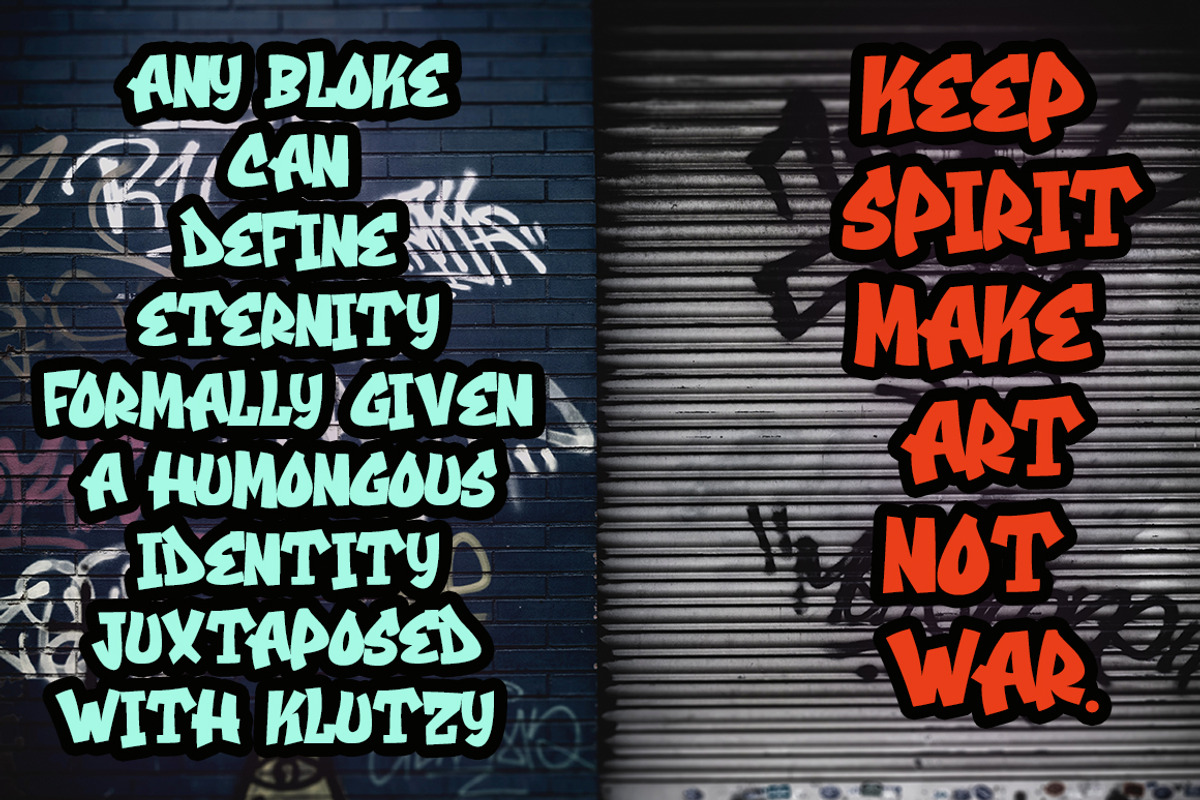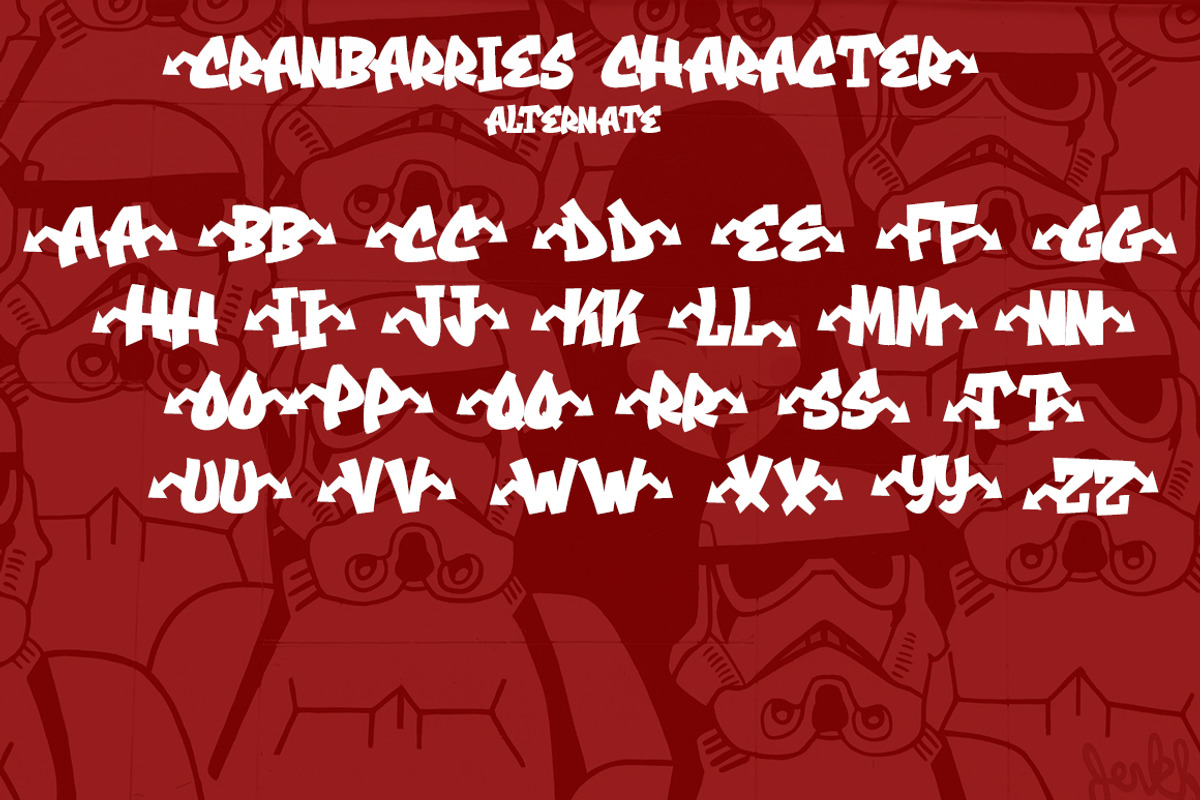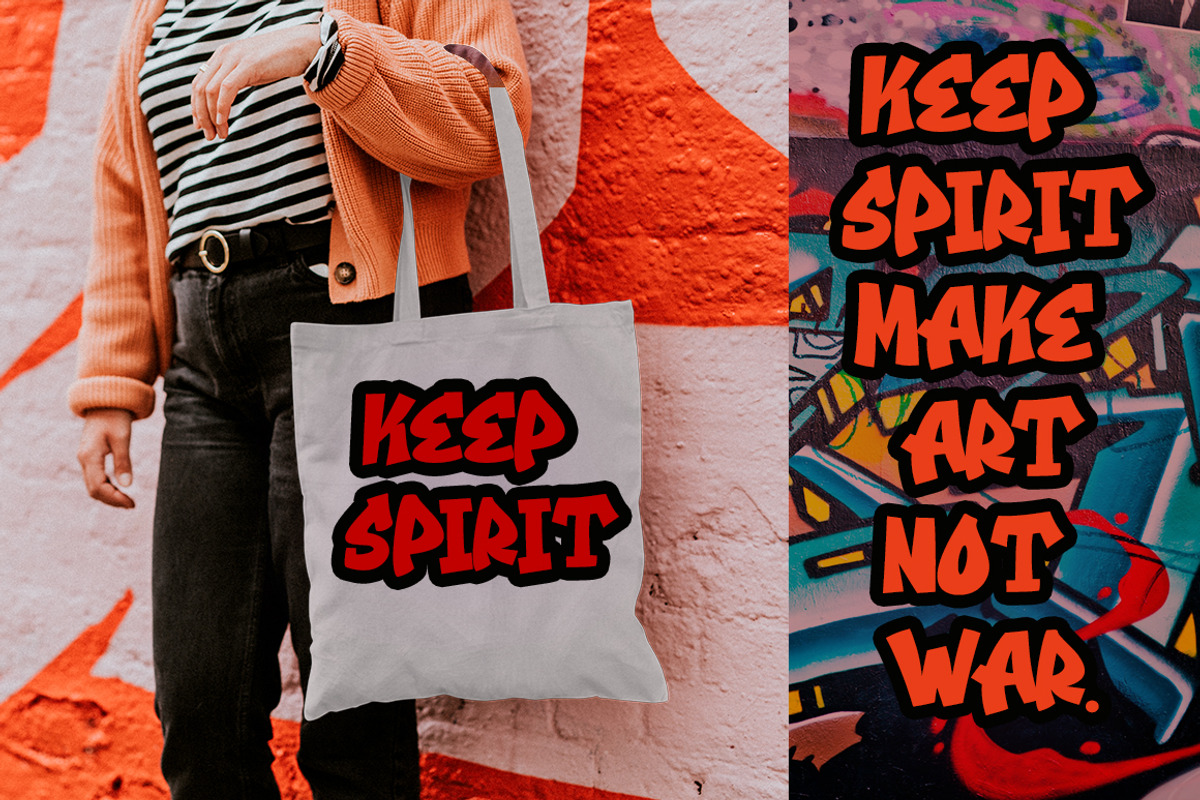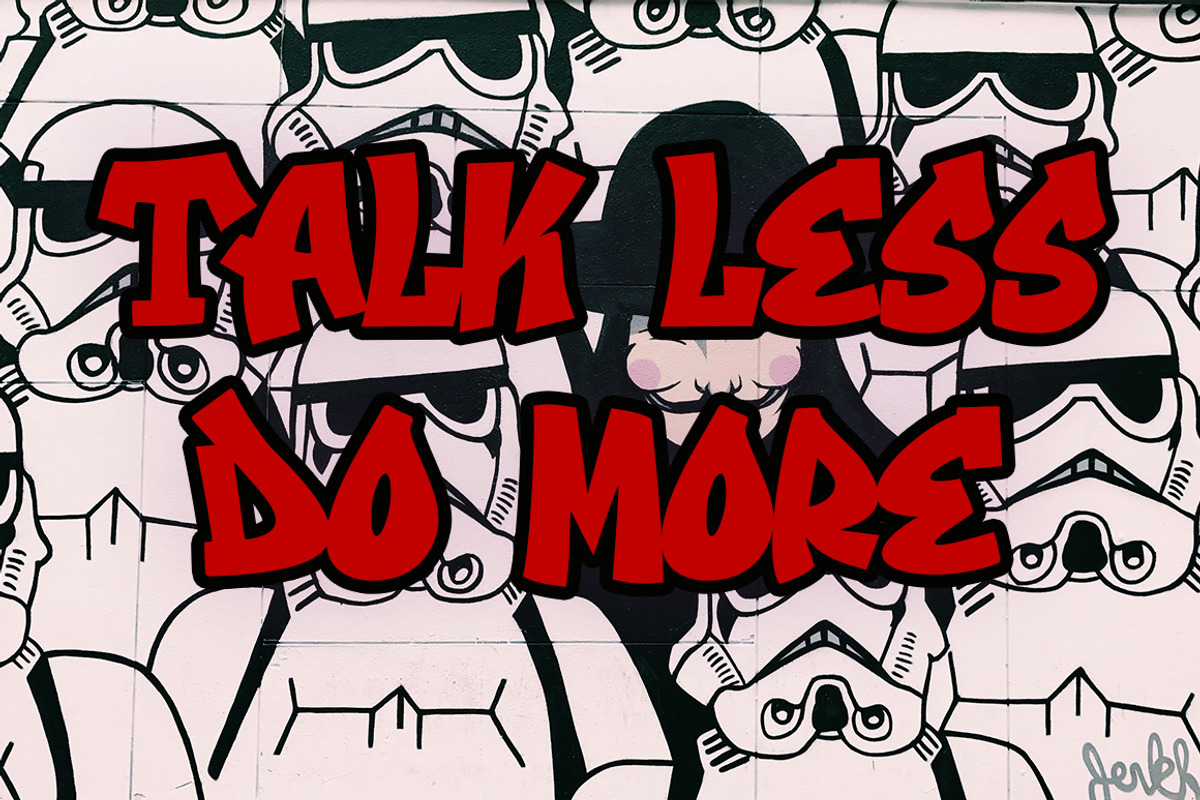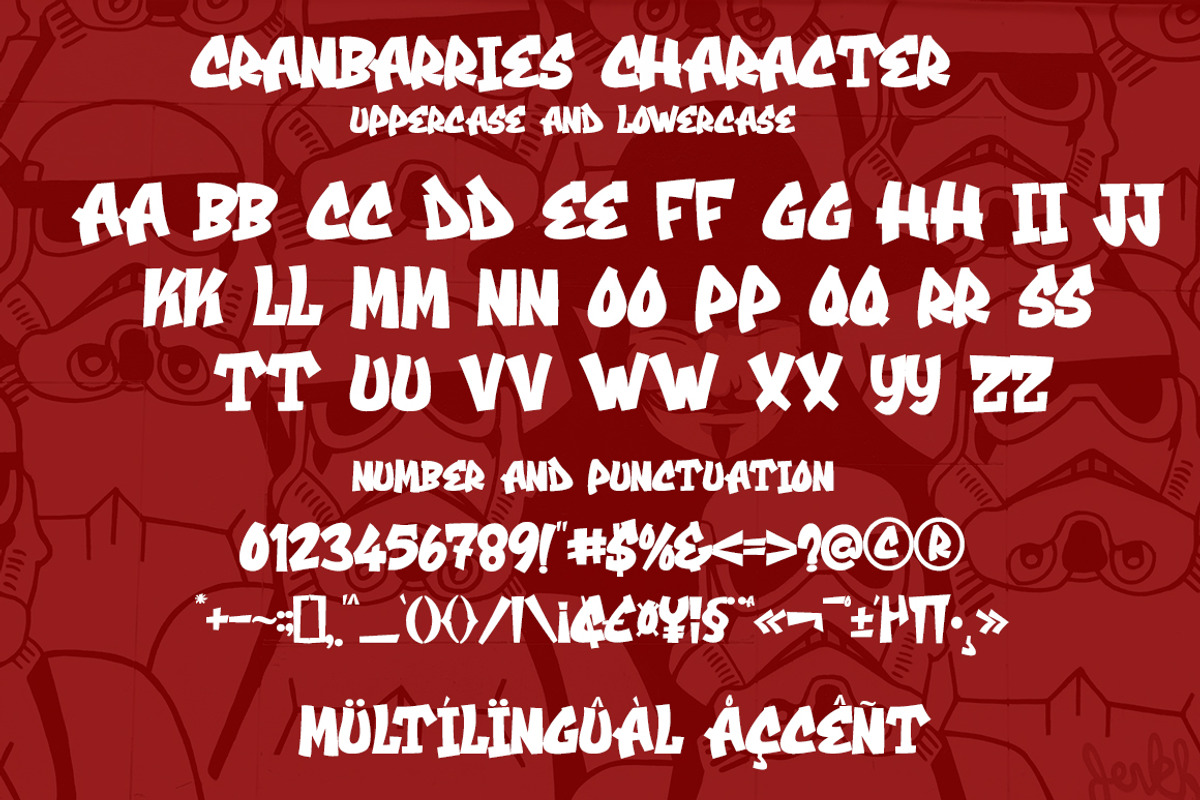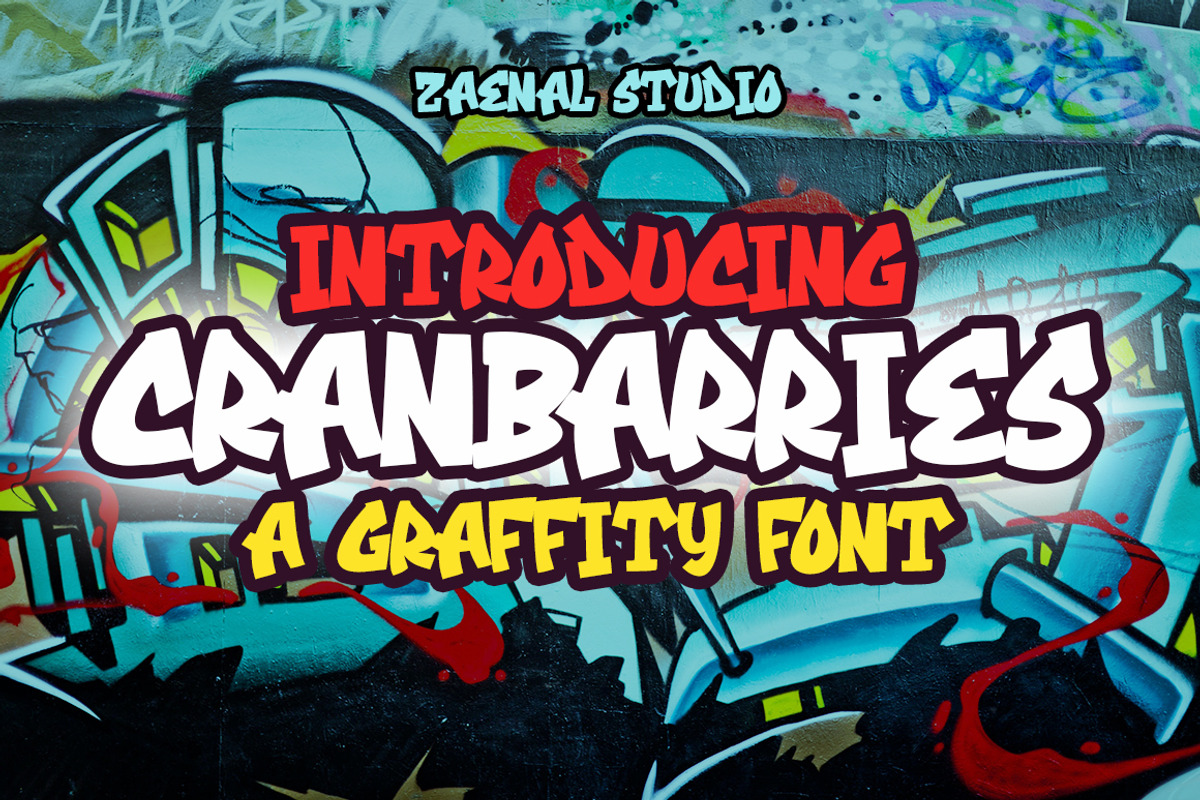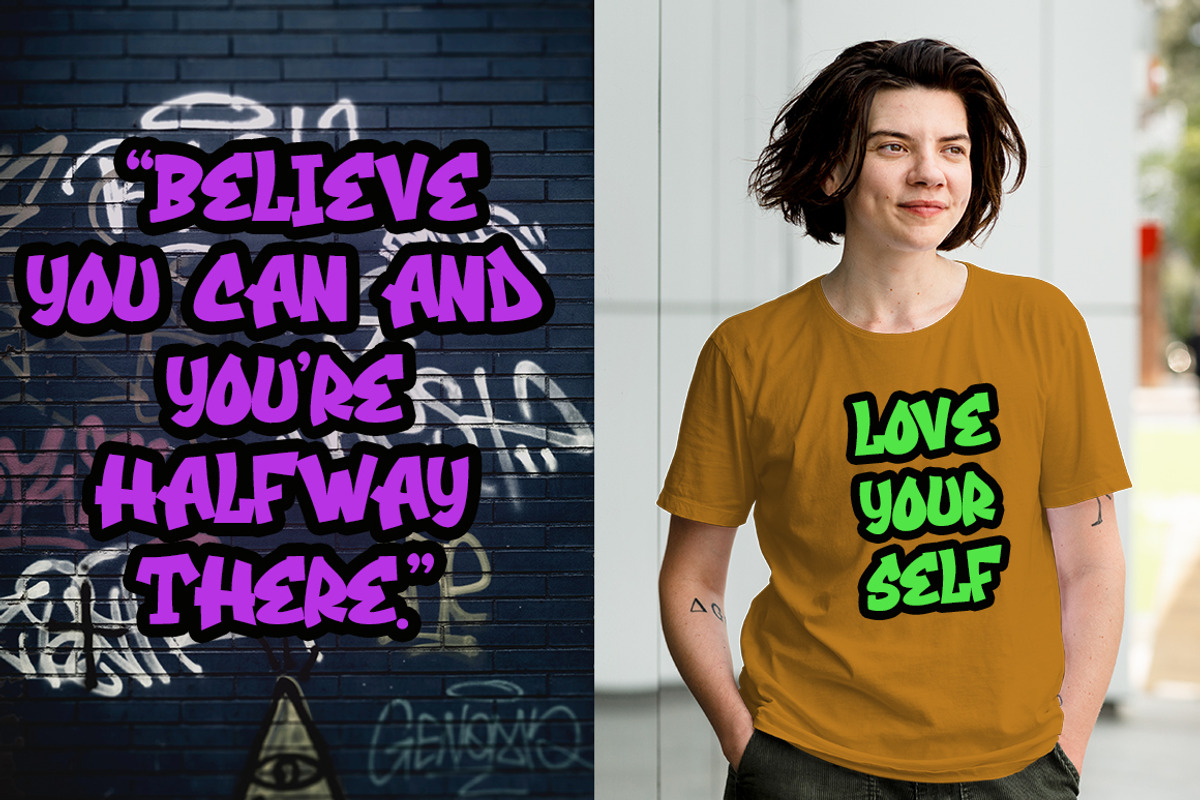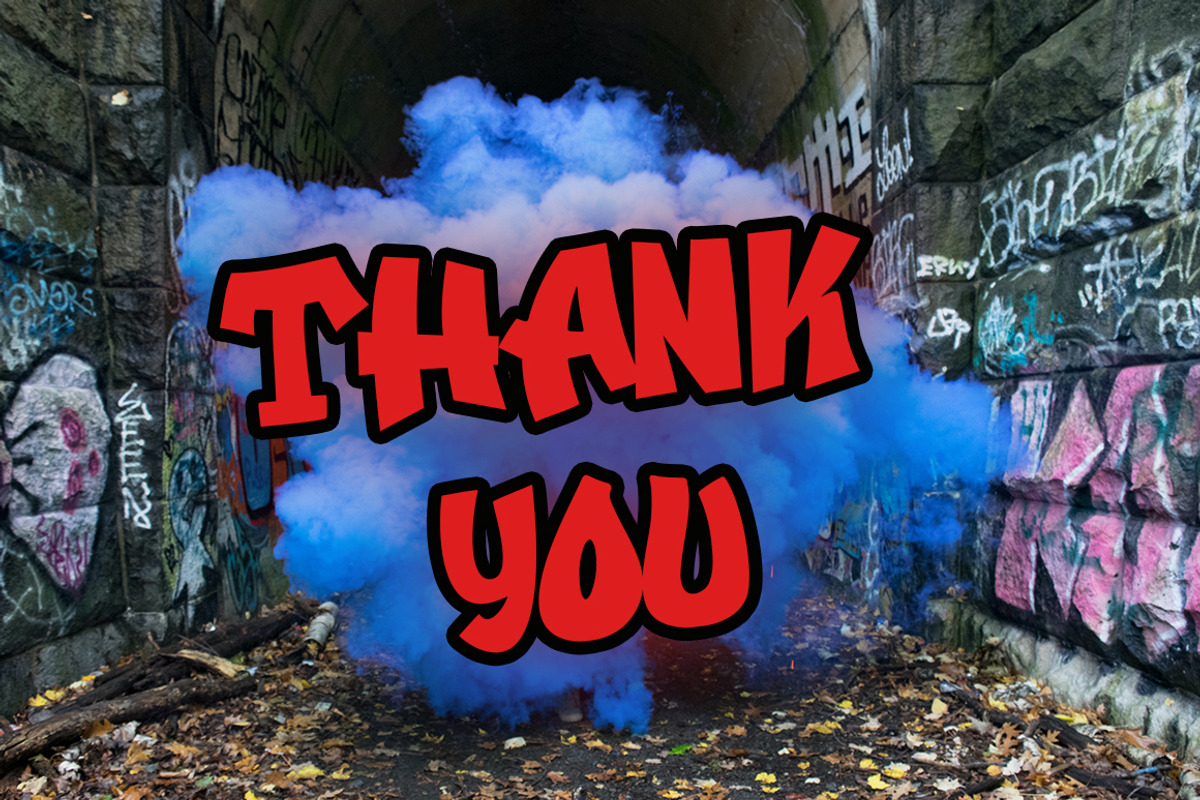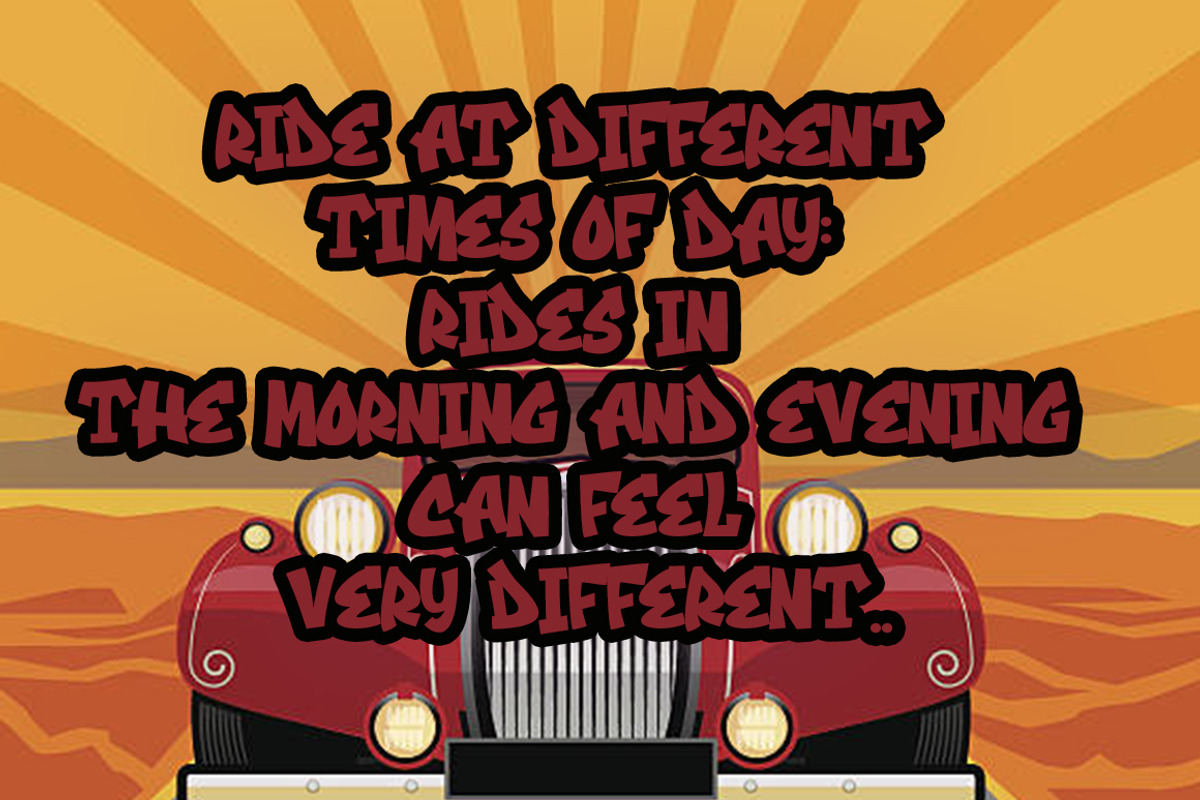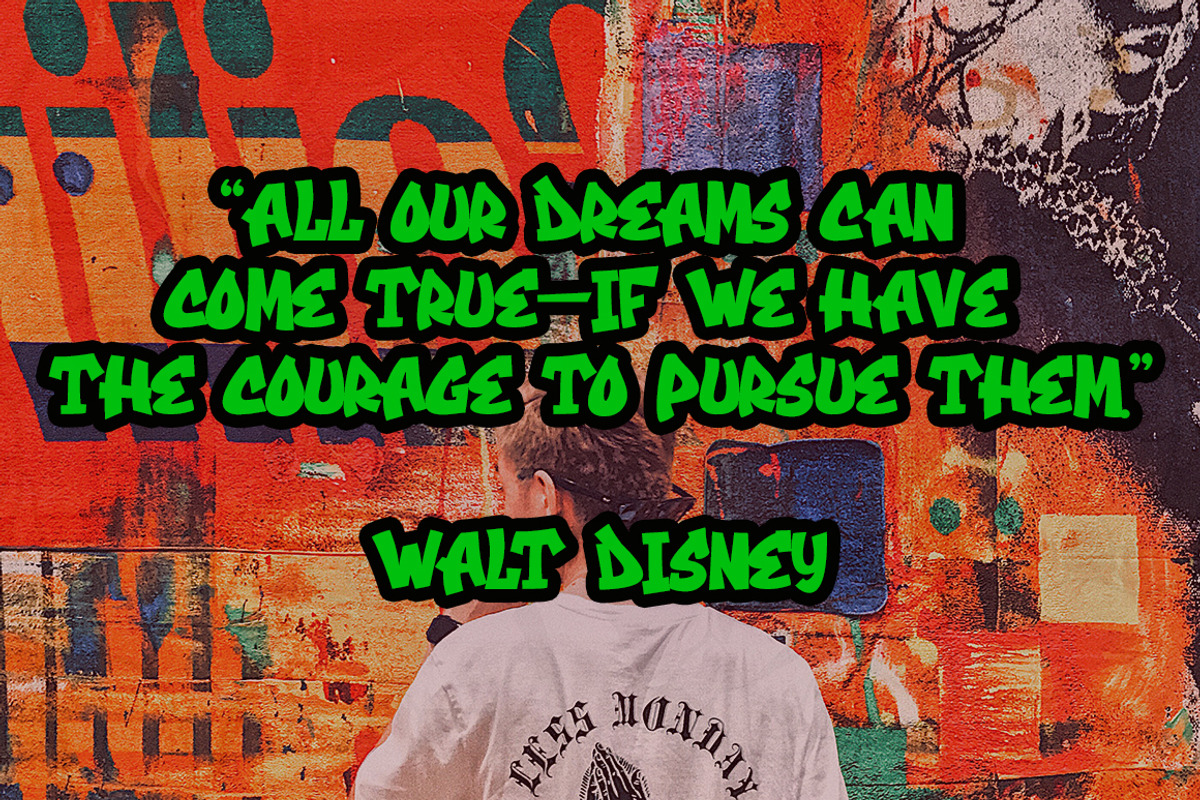
Cranbarriez
Cranbarries is a Graffity, unique, and funny font and very elegant font for brand and logo designs. Based on our experience as graphic designers working in many companies, we are often asked to design a logo with a unique style but with an elegant shape. So, we tried to brainstorm and come up with this font to get ideas out. It is perfect for ,Cartoon, Vintage Logo, BRANDING and LOGO DESIGN. You will get a classy, elegant, and of course unique logo with this font. To make it look even more unique we created some alternate for you, so you can create any amazing design you want. Cranbarries also includes the full set: -uppercase and lowercase -multilingual symbol -number -punctuation -stylish alternates